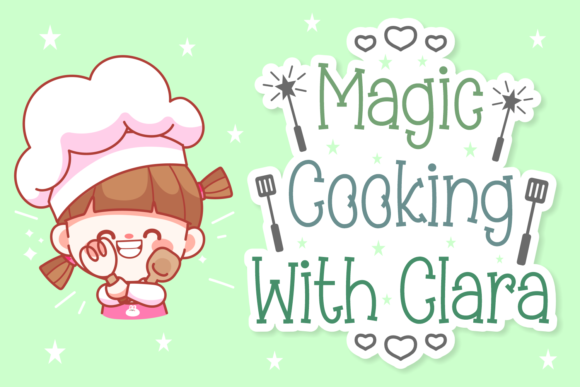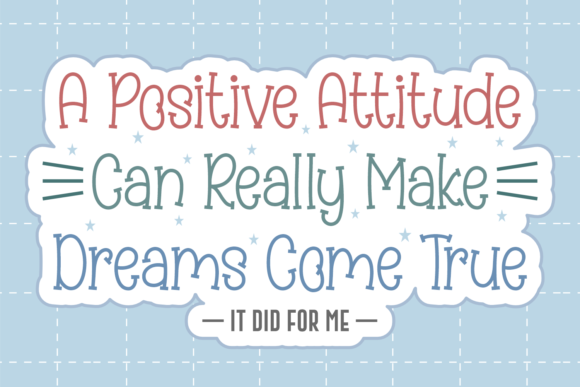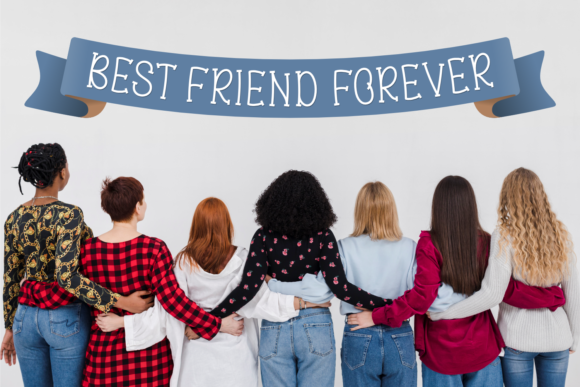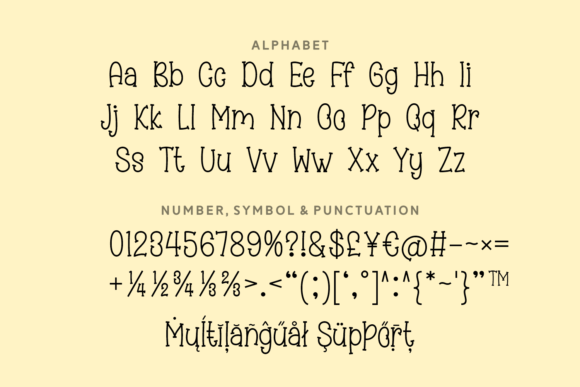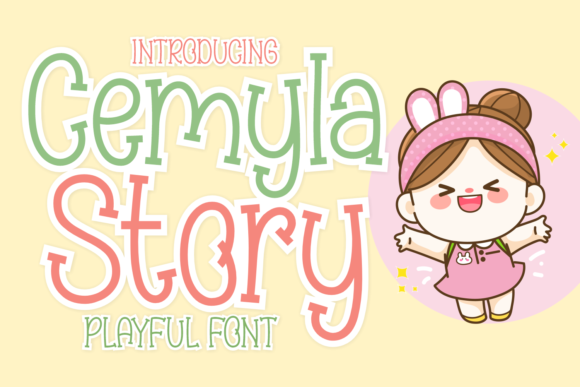
Cemyla Story Font: The Chic and Quirky Serif Font for All Occasions
Are you a designer, crafter, or digital artist looking for a font that can elevate your creative projects? Look no further than Cemyla Story, a chic and quirky serif font that’s perfect for a wide range of applications. In this article, we’ll explore the features and benefits of Cemyla Story, and why it’s poised to become your new favorite go-to font.
What is Cemyla Story Font?
Cemyla Story is a unique and stylish serif font that’s designed to add a touch of personality to your creative projects. With its distinctive lettering style, Cemyla Story is perfect for crafts, digital design, presentations, and even making greeting cards. Whether you’re a professional designer or a hobbyist, this font is sure to inspire your creativity and help you stand out from the crowd.
Key Features of Cemyla Story Font
So, what makes Cemyla Story so special? Here are just a few of its key features:
- Chic and Quirky Design: Cemyla Story boasts a stylish and offbeat design that’s sure to add a touch of whimsy to your projects.
- Serif Font: The font features classic serifs that add a level of sophistication and elegance to your text.
- Versatile: Cemyla Story is perfect for a wide range of applications, from digital design to crafting and paper crafting.
- Easy to Read: Despite its quirky design, Cemyla Story is surprisingly easy to read, making it perfect for body text and headings.
Uses for Cemyla Story Font
So, how can you use Cemyla Story in your creative projects? Here are just a few ideas to get you started:
- Crafts: Use Cemyla Story to add a personal touch to your handmade crafts, such as scrapbooking, card making, and journaling.
- Digital Design: Cemyla Story is perfect for digital designers who want to add a touch of personality to their work, from social media graphics to blog posts and website headers.
- Presentations: Add some visual interest to your presentations with Cemyla Story, perfect for headings, titles, and bullet points.
- Greeting Cards: Use Cemyla Story to create unique and personalized greeting cards for special occasions.
Why Choose Cemyla Story Font?
With so many fonts to choose from, why should you choose Cemyla Story? Here are just a few reasons:
- Unique Design: Cemyla Story boasts a truly unique design that’s sure to set you apart from the crowd.
- High-Quality: This font is designed to high-quality standards, ensuring that it looks great in any application.
Tips for Using Cemyla Story Font
Here are a few tips for getting the most out of Cemyla Story:
- Experiment with Sizes: Try out different font sizes to see how Cemyla Story looks in different contexts.
- Pair with Other Fonts: Cemyla Story pairs well with other fonts, so don’t be afraid to experiment with different combinations.
- Use for Headings and Titles: Cemyla Story is perfect for headings and titles, where its unique design can really shine.
In conclusion, Cemyla Story is a chic and quirky serif font that’s perfect for designers, crafters, and digital artists. With its unique design, versatility, and ease of use, it’s poised to become your new favorite go-to font. Whether you’re working on a craft project, digital design, or presentation, Cemyla Story is sure to add a touch of personality and style. So why not give it a try today and see what amazing creative projects you can come up with?